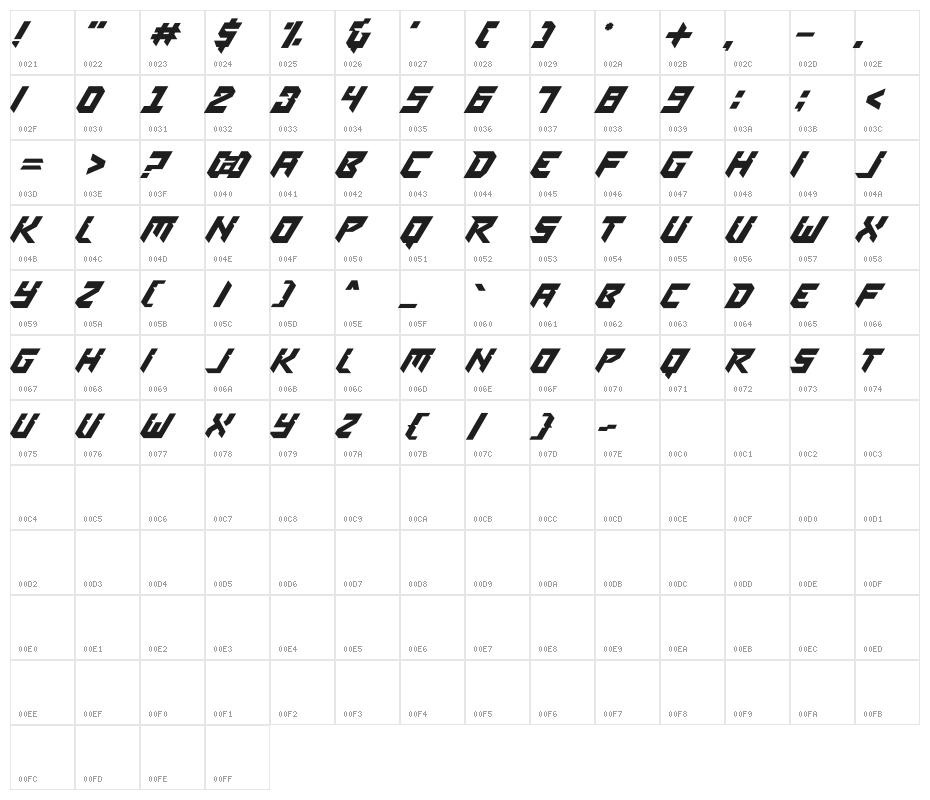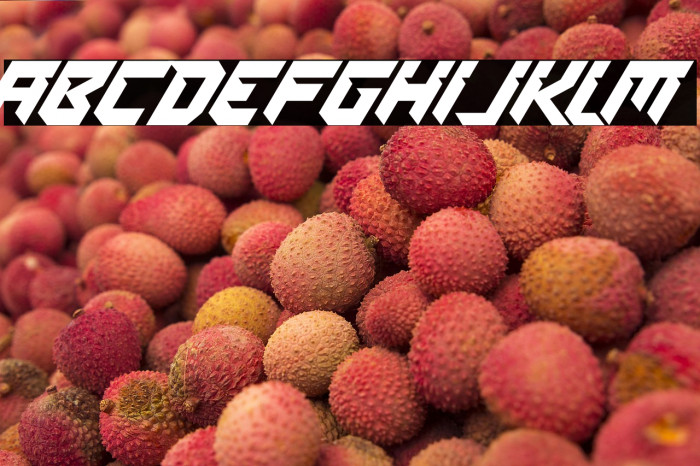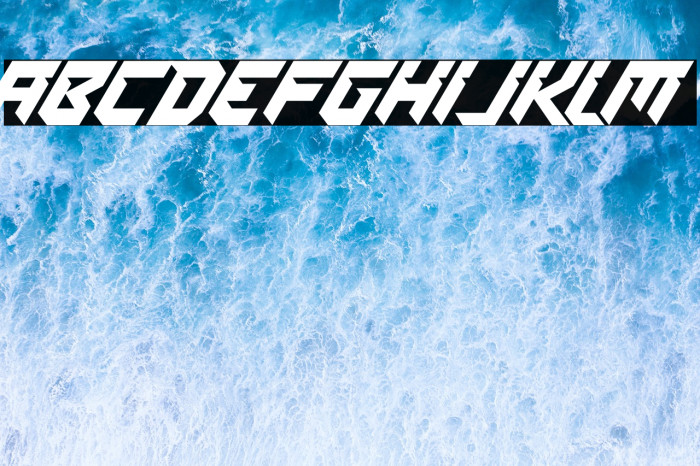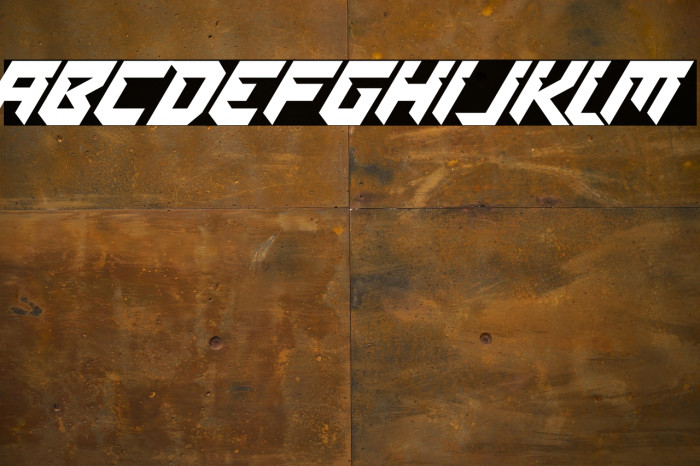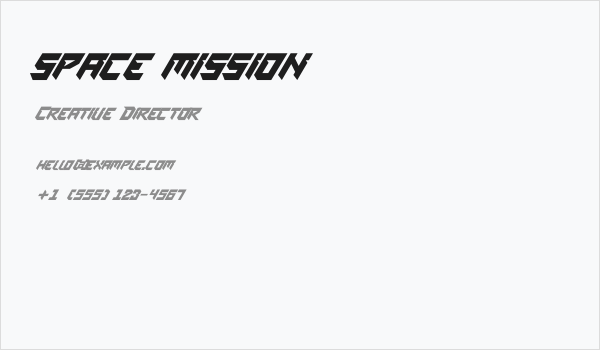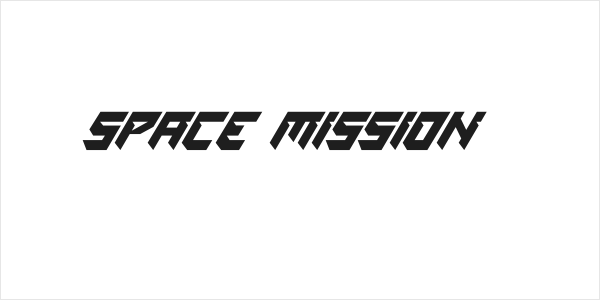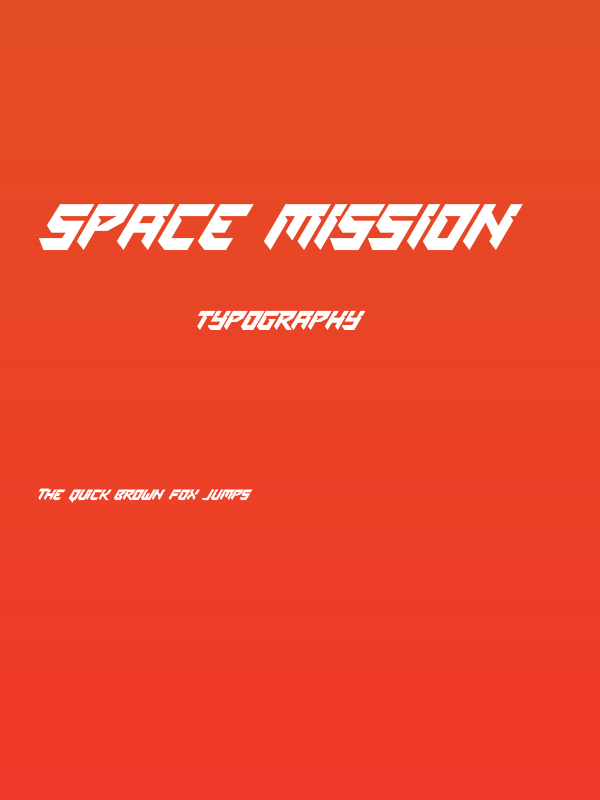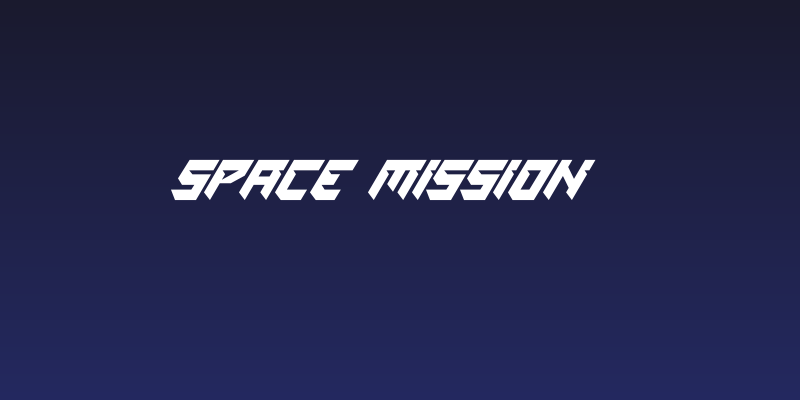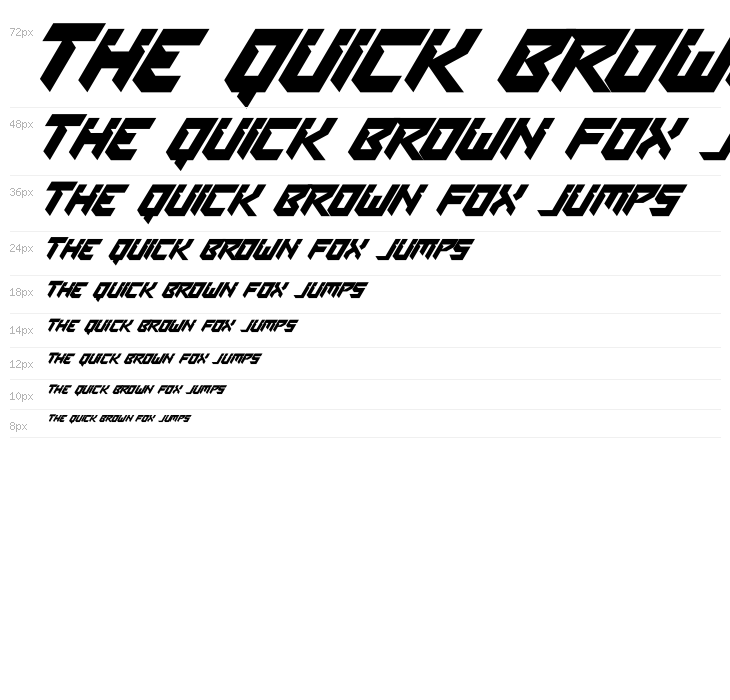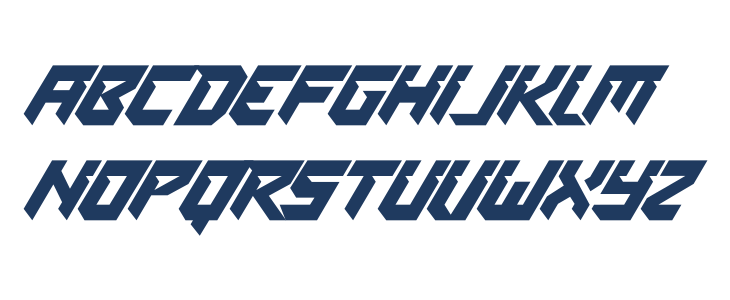
SPACE MISSION Font
SPACE MISSION Description
This font features a bold, futuristic design with sharp angles and a geometric structure. The characters are heavily stylized, with a consistent slant that gives a sense of motion and energy. The uppercase and lowercase letters maintain a uniform height, enhancing the font's cohesive appearance. Numbers and special characters follow the same angular and dynamic style, making them stand out. The overall design is reminiscent of science fiction themes, suitable for projects that require a modern and edgy look.